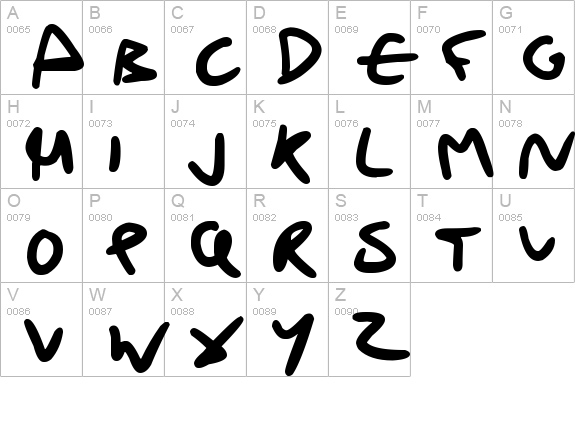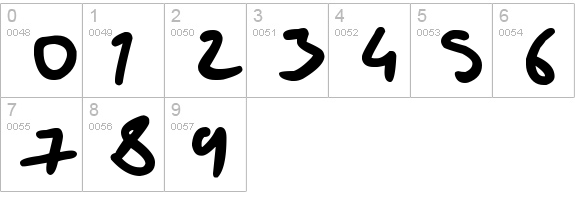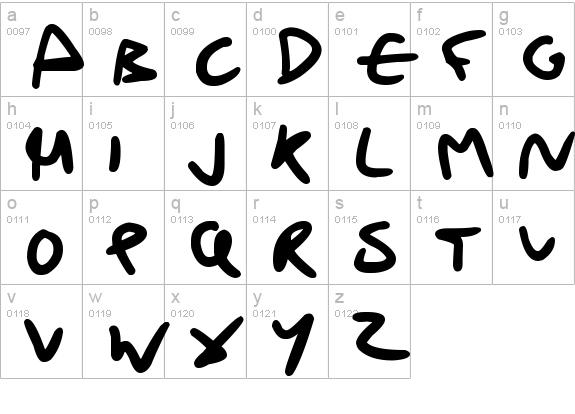
Drunk Handwritting Font Details
Drunk Handwritting is a free for personal use font in the Script > Handwritten category, designed by Darrell Flood. It has been downloaded 48 times and is available for Windows, Mac and Linux.
Introducing the captivating Drunk Handwriting font, a whimsical and charming typeface that exudes personality and spontaneity. This unique font mimics the quirky and uneven strokes of handwriting done under the influence, giving your designs a playful and unconventional touch. Perfect for projects that call for a hint of fun and creativity, Drunk Handwriting font adds a touch of originality to any text.